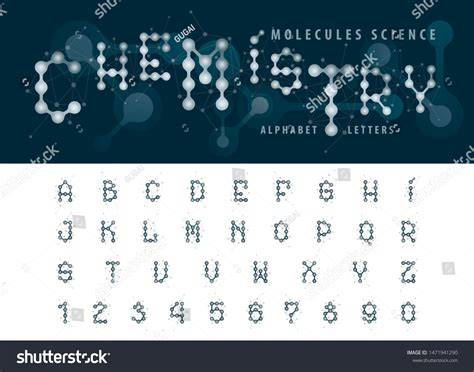
Chemistry Fonts: How They Can Enhance Your Design Projects
If you’re a designer, you know that fonts are essential when it comes to creating great looking design projects. In the past few years, there has been an emergence of a new kind of font: chemistry fonts. These fonts, while still relatively new, are quickly gaining popularity among designers. Here, we’ll explore why that is, and how you can use chemistry fonts to enhance your design projects.
What Are Chemistry Fonts?
Chemistry fonts are a new type of font created in 2023. This font style is based on the characters found in chemical symbols. The font is designed to represent the properties of elements and compounds, by using a series of dots and lines to depict them. Each character is designed to resemble a chemical symbol, allowing for a unique and attractive design.
How Are Chemistry Fonts Used?
Chemistry fonts are quickly becoming popular with designers. This font style is great for creating logos and titles with a unique and interesting look. Since they are based on chemical symbols, they can be used in a variety of ways, such as creating logos and titles for science-related projects. Additionally, they can be used to create designs with a more unique and modern look.
What Are the Benefits of Chemistry Fonts?
Chemistry fonts can be used to create a unique and attractive look for any design project. By using this font style, you can add a touch of science to your project and make it stand out from the crowd. Additionally, it can be used to create logos and titles that are both interesting and eye-catching. Additionally, since the characters are based on chemical symbols, they can be used to create a design that is both unique and meaningful.
Chemistry fonts are quickly becoming a popular choice for designers. This font style is great for creating logos and titles with a unique and interesting look. Additionally, it can be used to create designs with a more unique and modern look. If you are looking for a way to make your design project stand out, then chemistry fonts are the way to go.